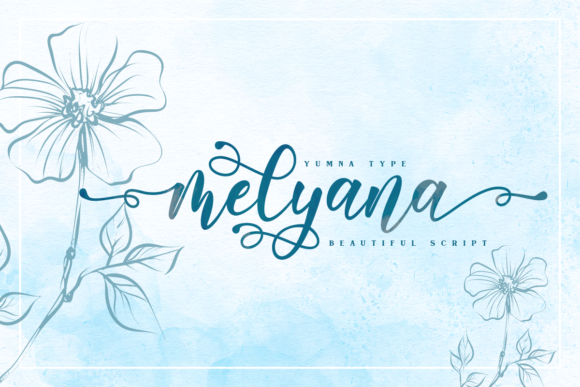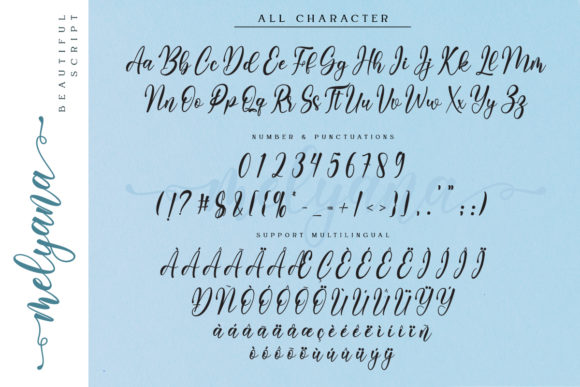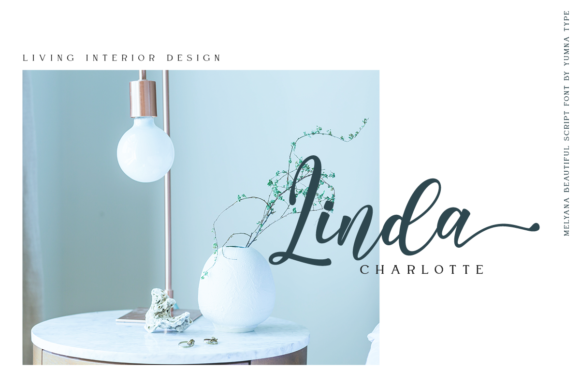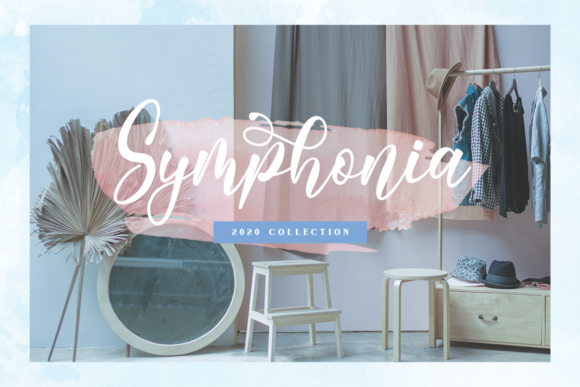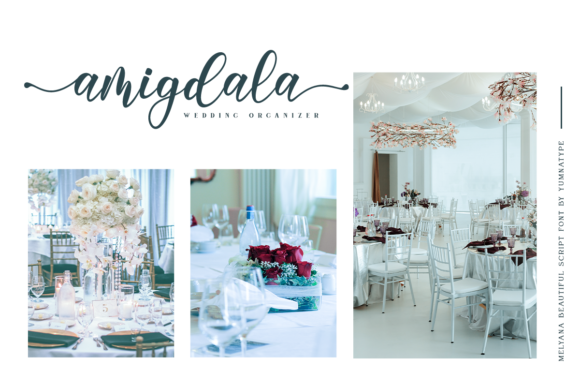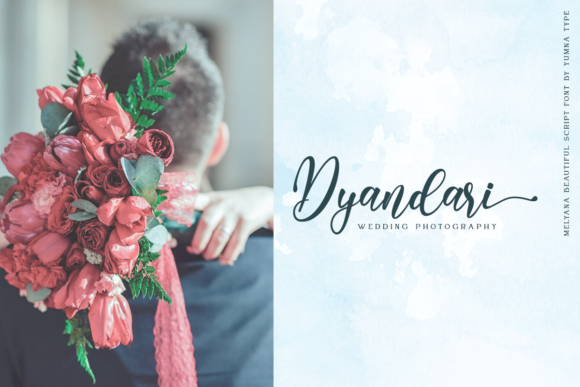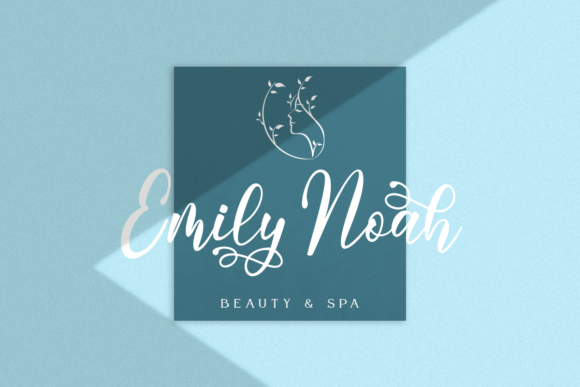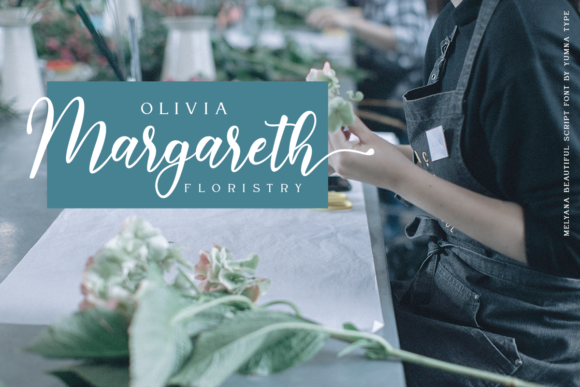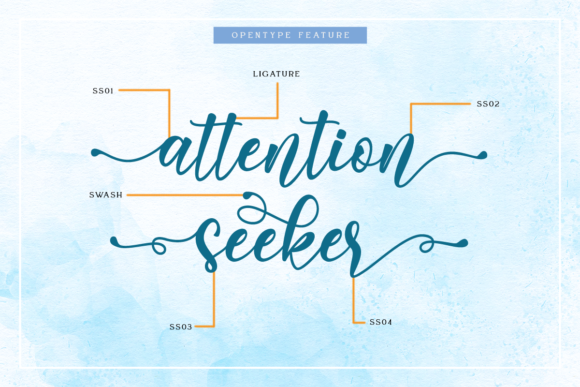
Melyana Font
About Melyana Font
Melyana is a beautiful and modern, soft hand-lettered script. It will elevate a wide range of design projects to the highest level, be it branding, headings, wedding designs, invitations, signatures, logos, labels, and much more!